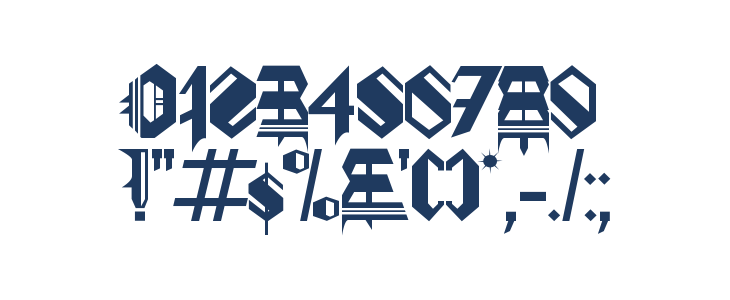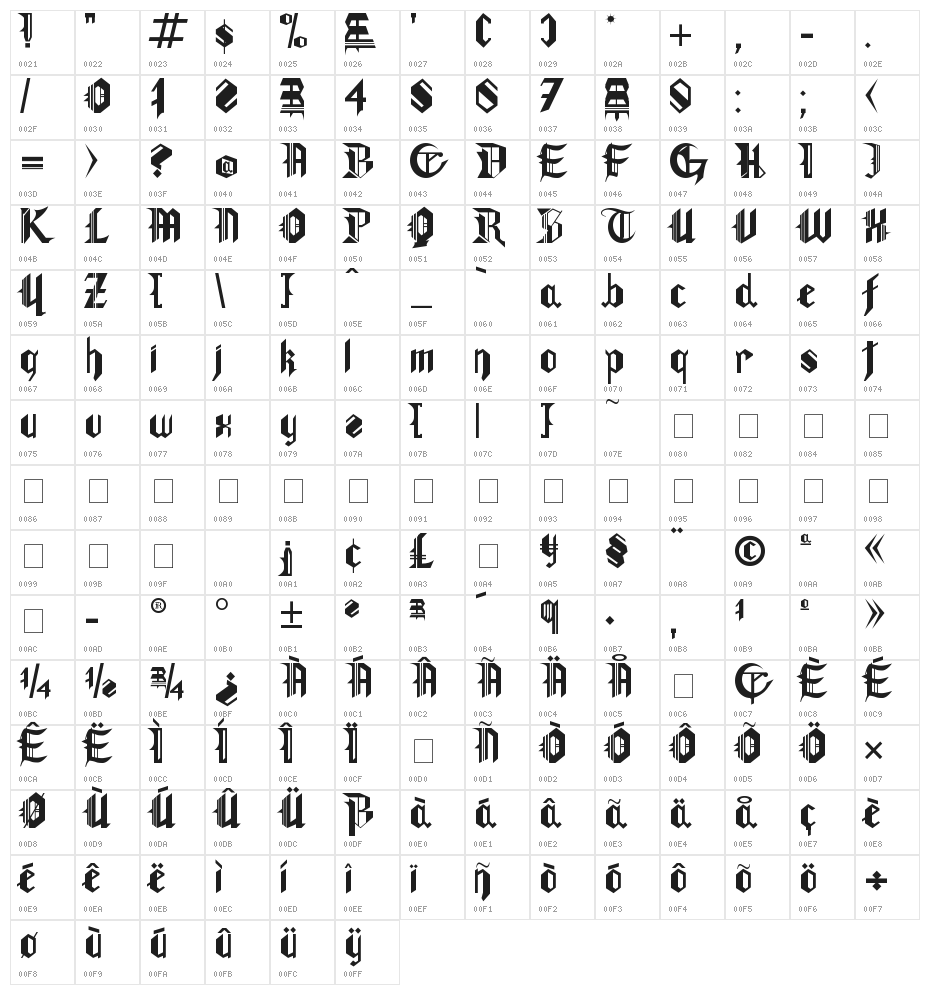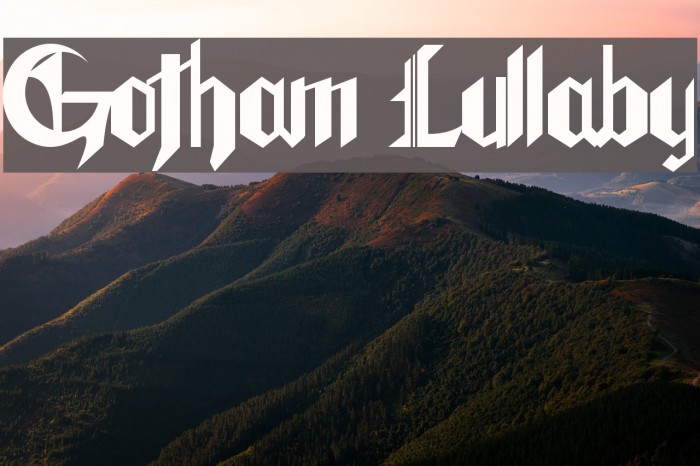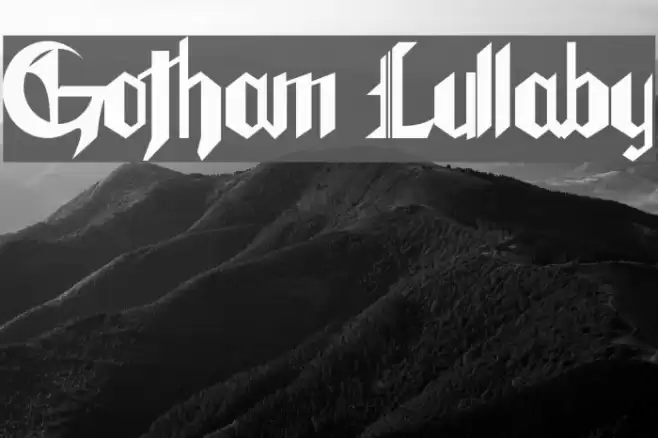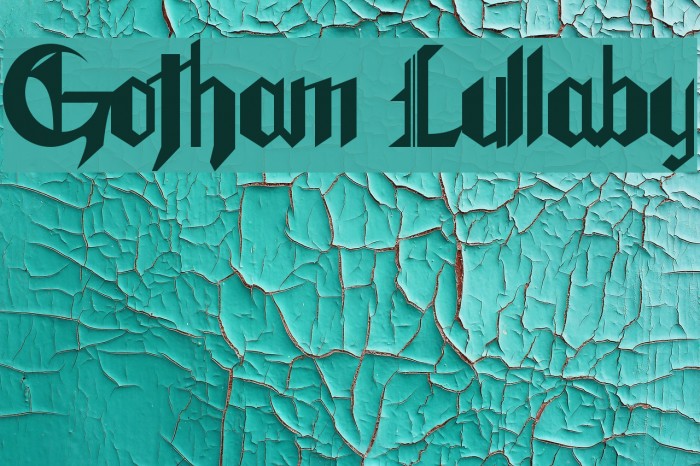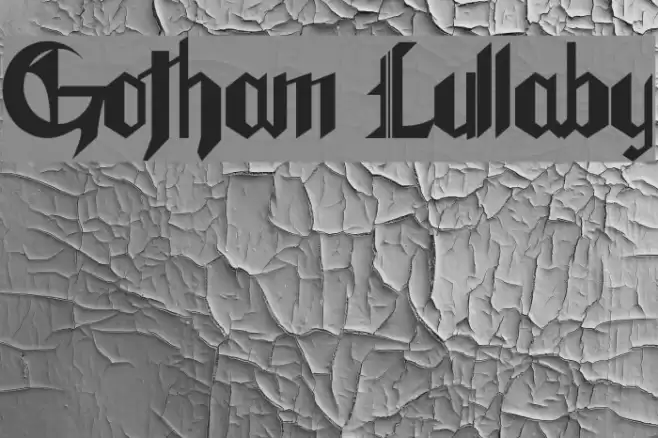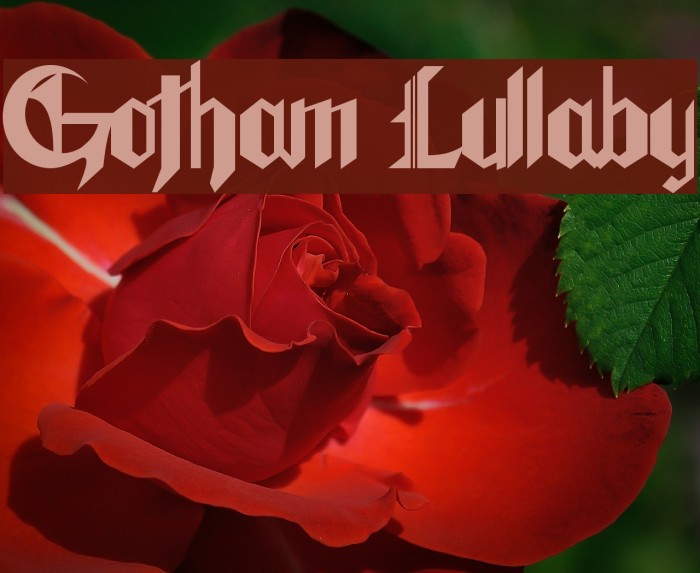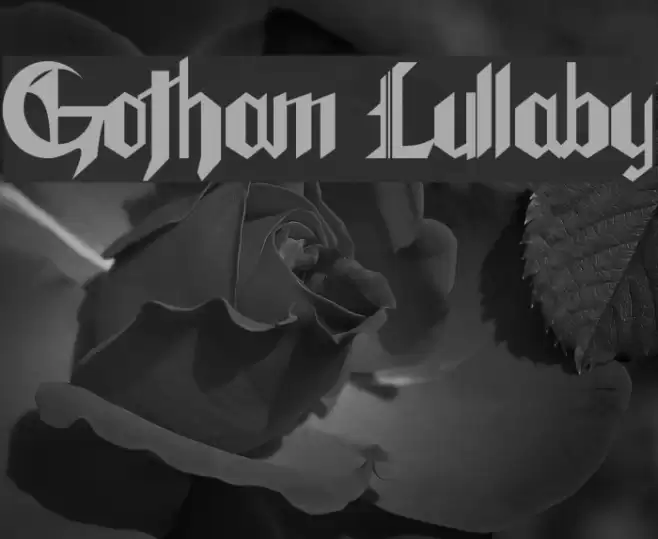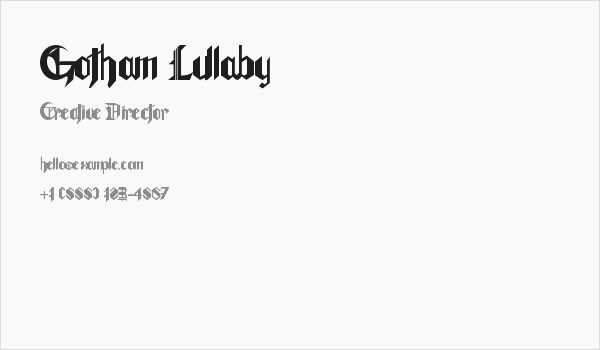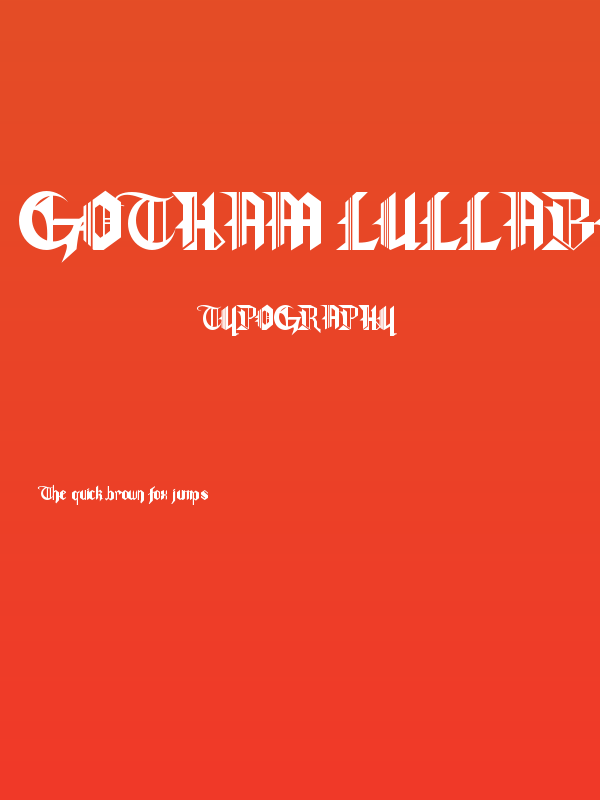
Gotham Lullaby Font
Gotham Lullaby Description
This font features a bold and striking design with a strong Gothic influence. The uppercase letters are characterized by sharp angles and intricate detailing, giving them a dramatic and imposing appearance. The lowercase letters maintain the same boldness, with a slightly more streamlined look. The numerals are equally bold, with unique geometric shapes that add to the font's distinctive style. Special characters are creatively designed, maintaining the overall Gothic theme. This font's high contrast and decorative elements make it stand out, ideal for projects that require a strong visual impact.
Proposed ProjectsIdeal for posters, album covers, branding, and any project needing a dramatic, eye-catching typeface.